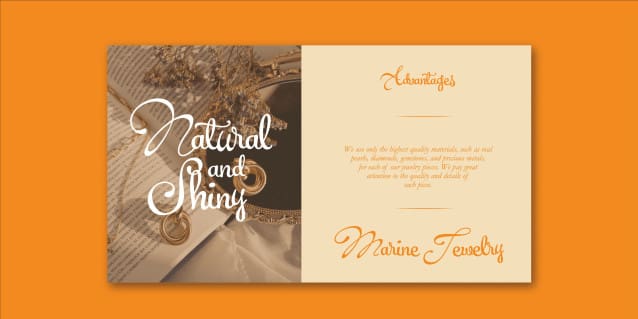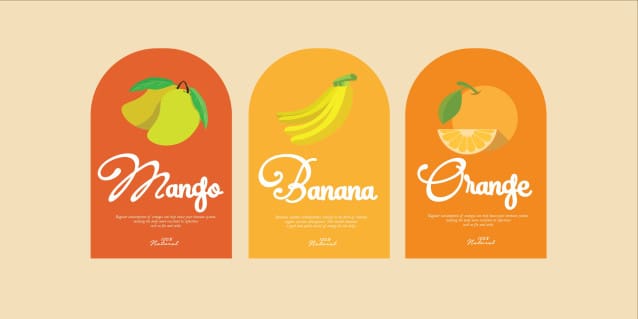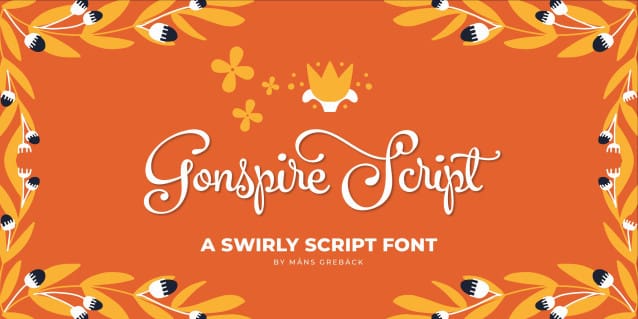
Gonspire Font
Gonspire Font is a swirly and swashy typeface that radiates beauty. With elegant curves and swooshes, Gonspire Script is a decorative masterpiece. Its lovely design is accentuated by intricate swashes and beautiful ornaments.
Use underscore _ anywhere in a word for swashes.
Example: Love_rose
Use multiple underscore for different swashes.
Example: Wonder________woman